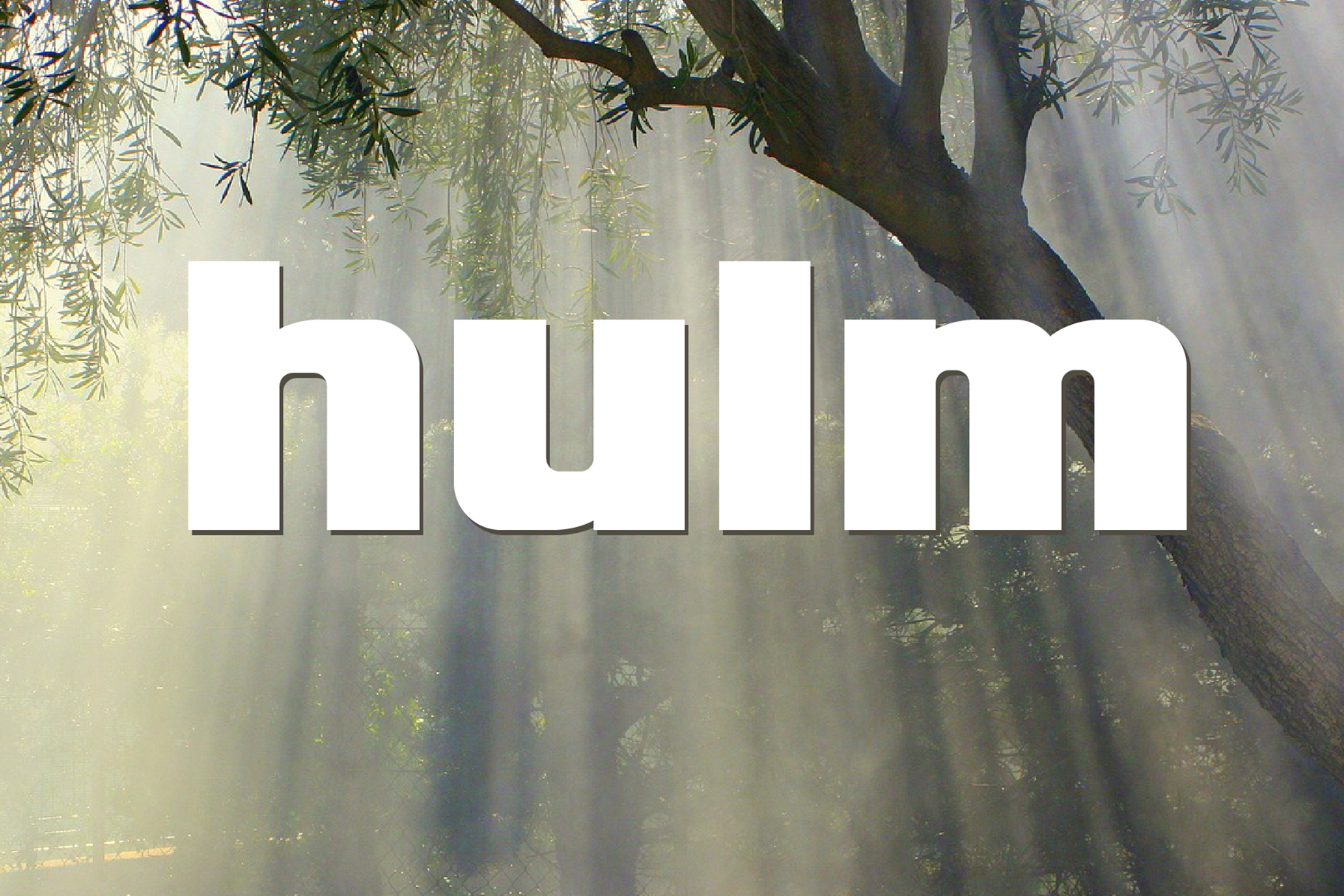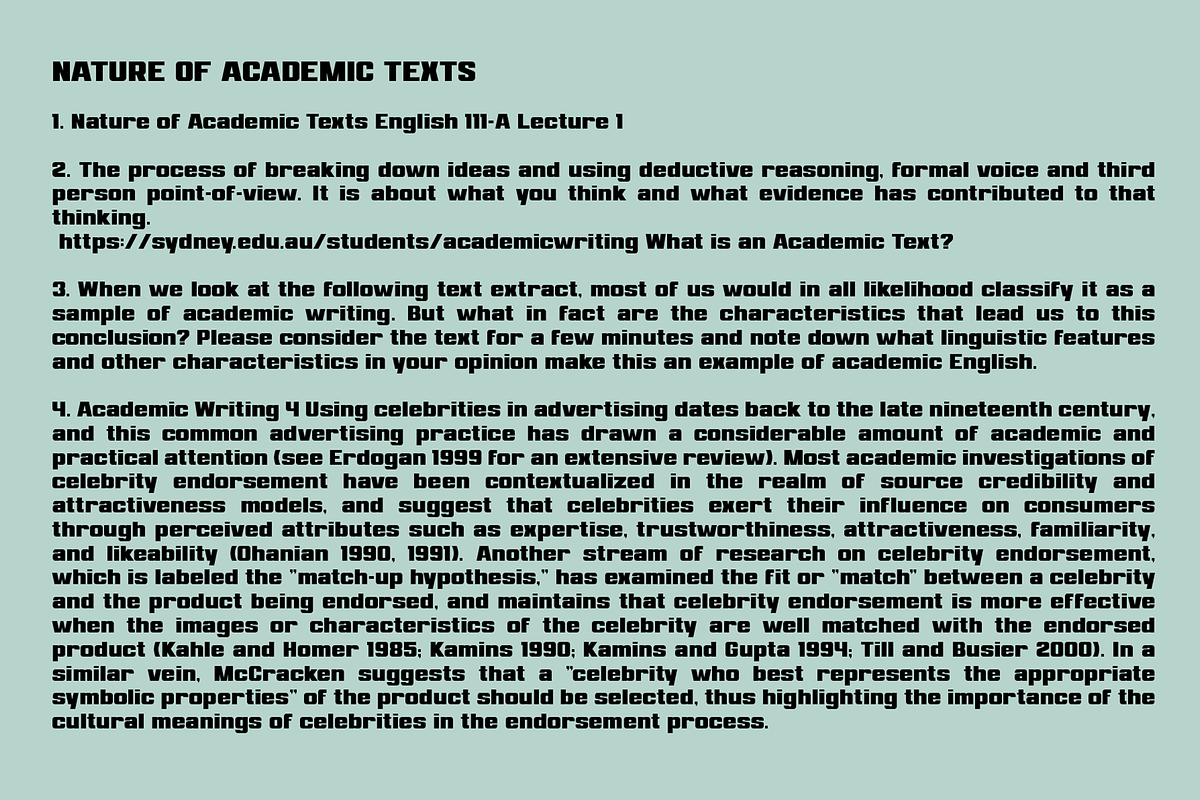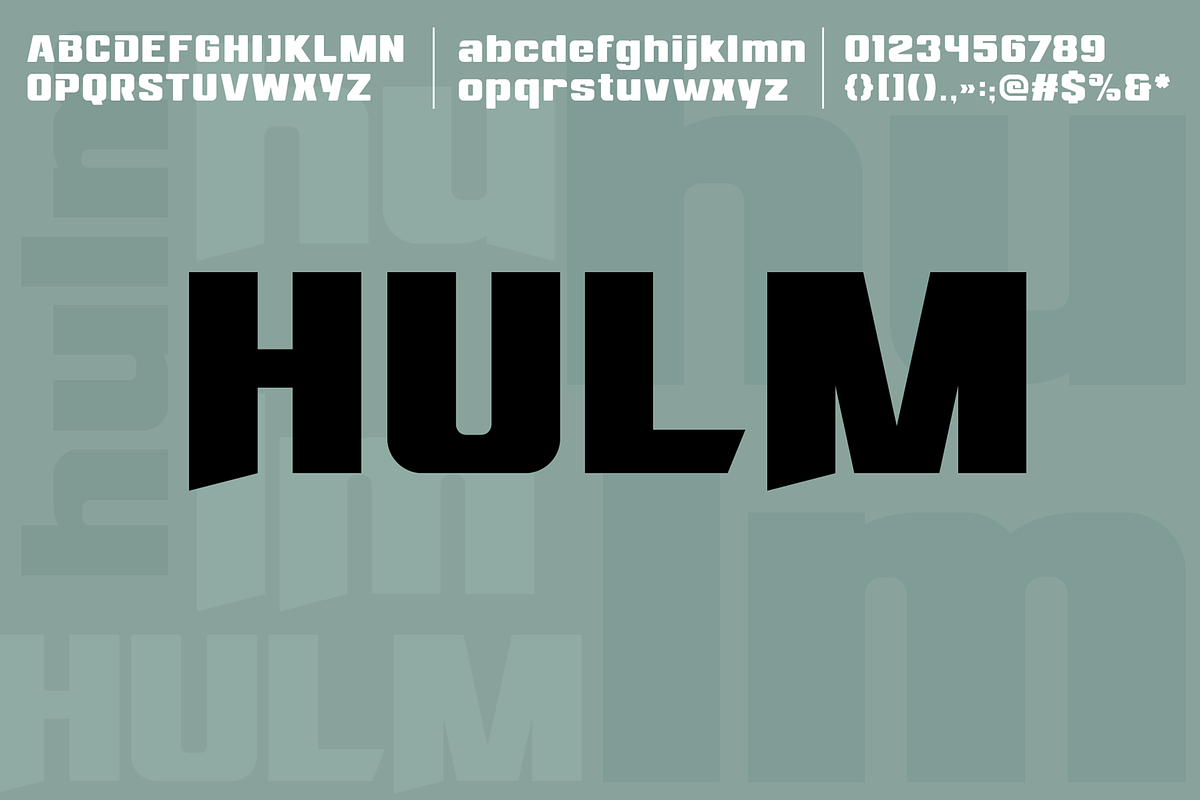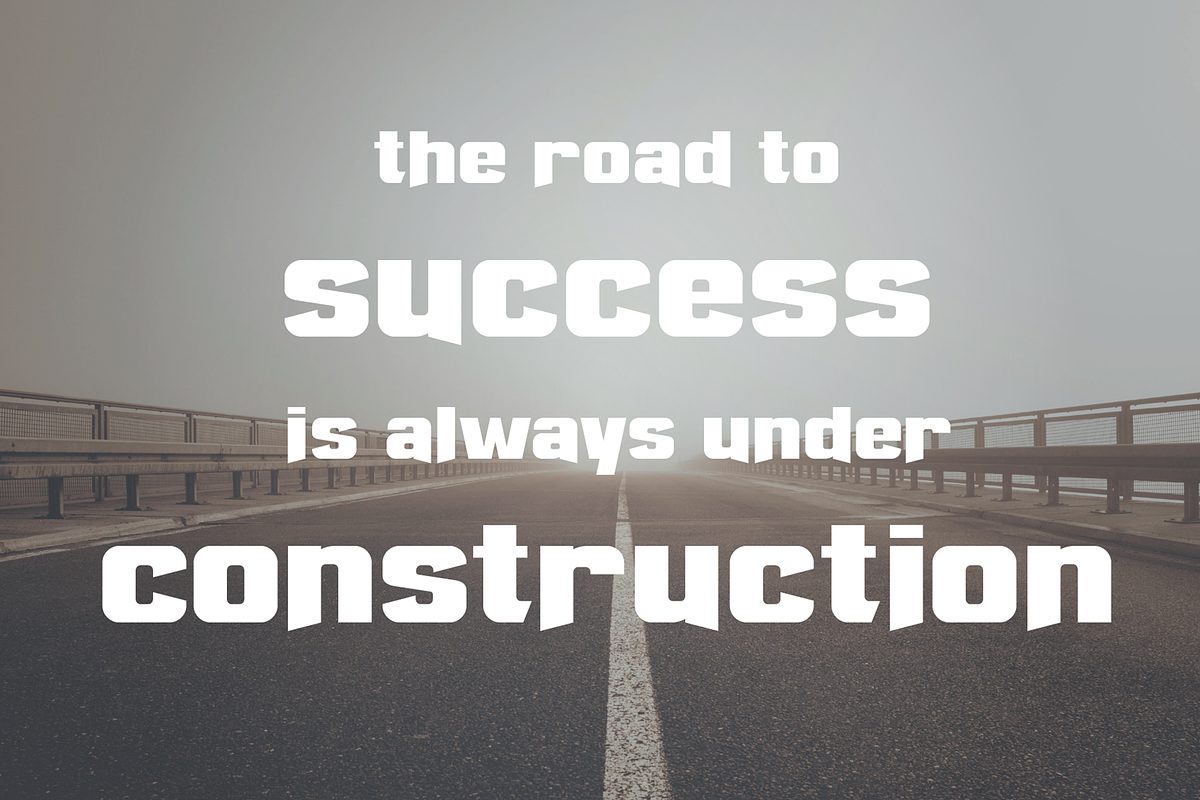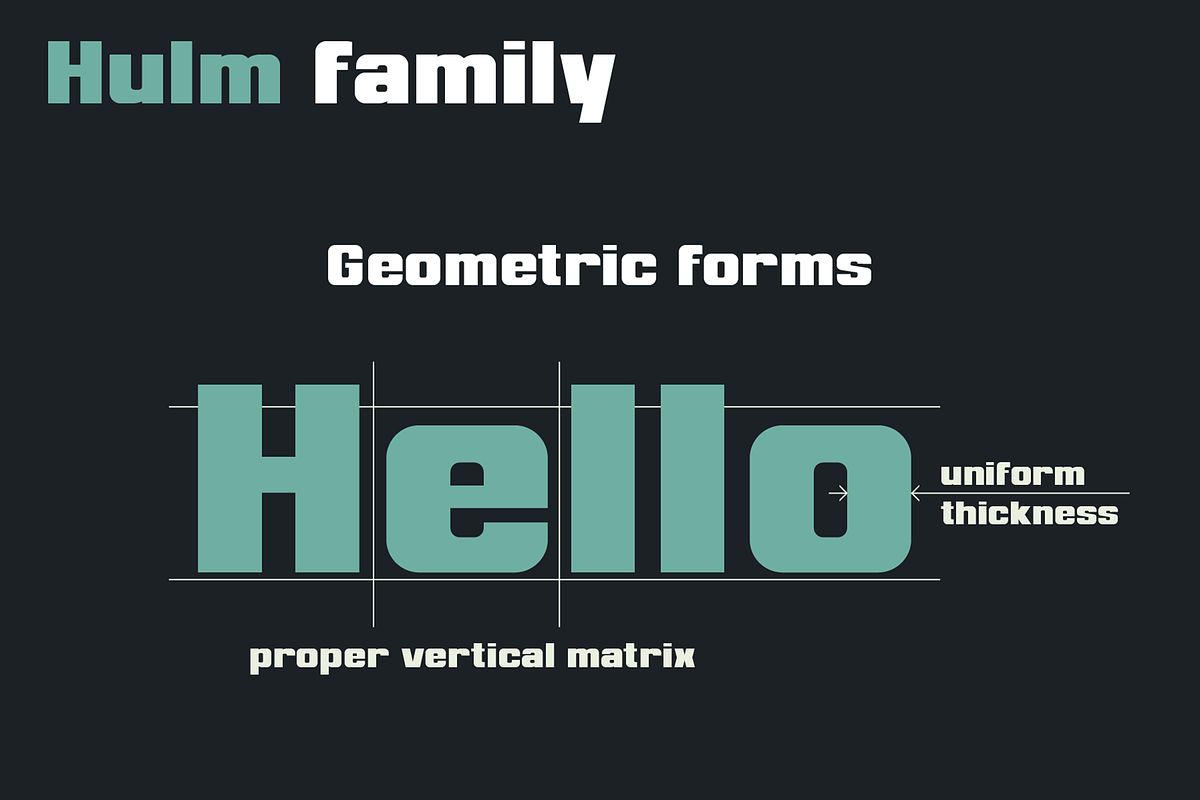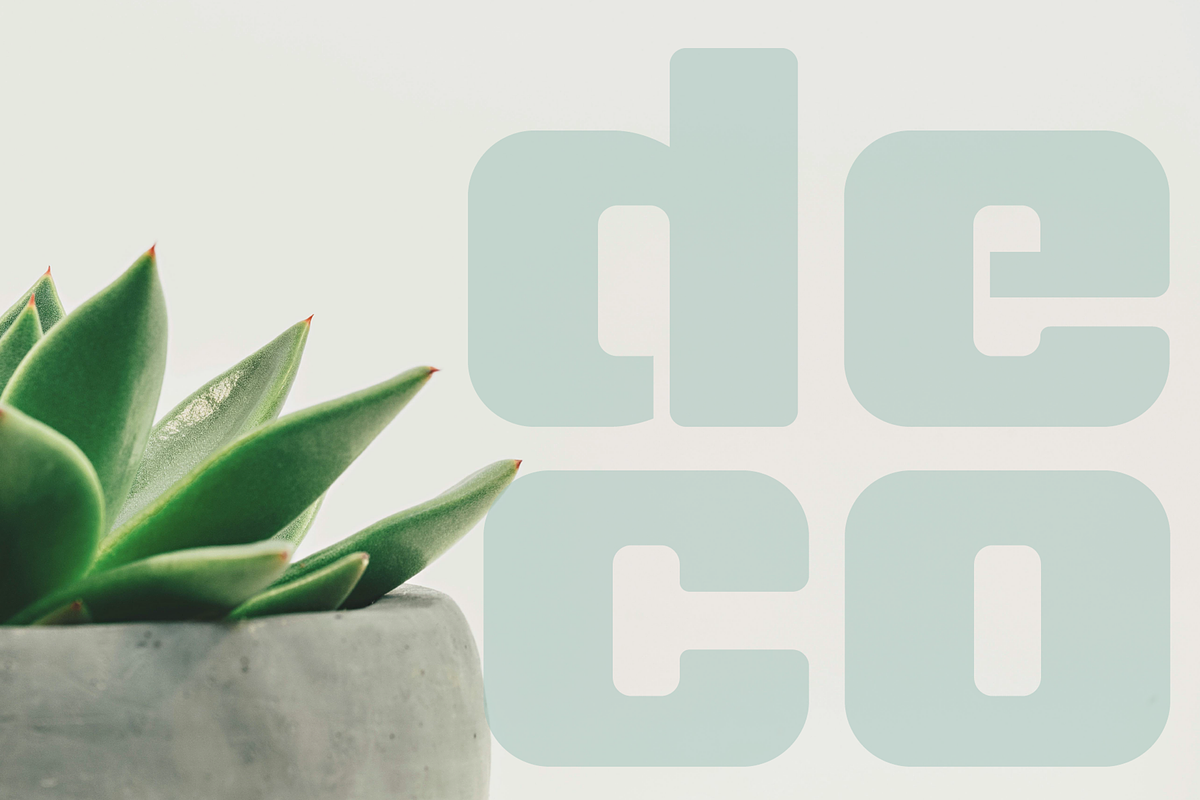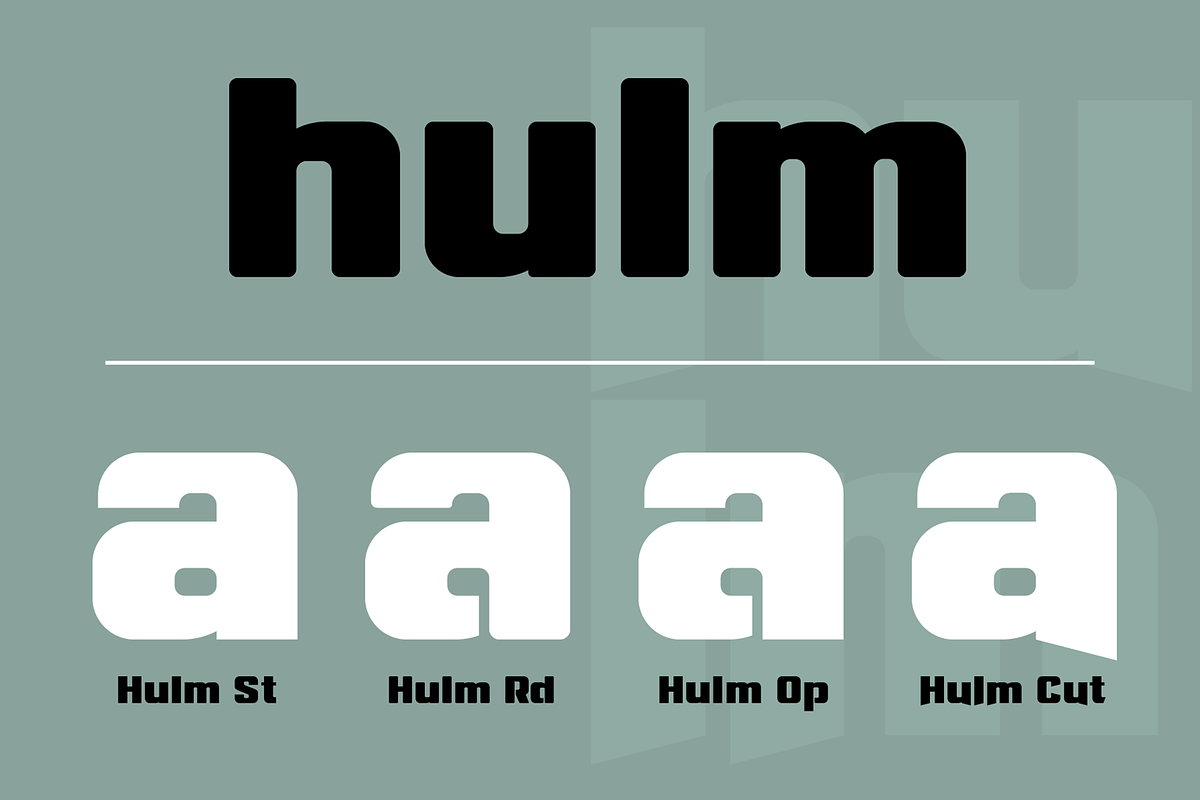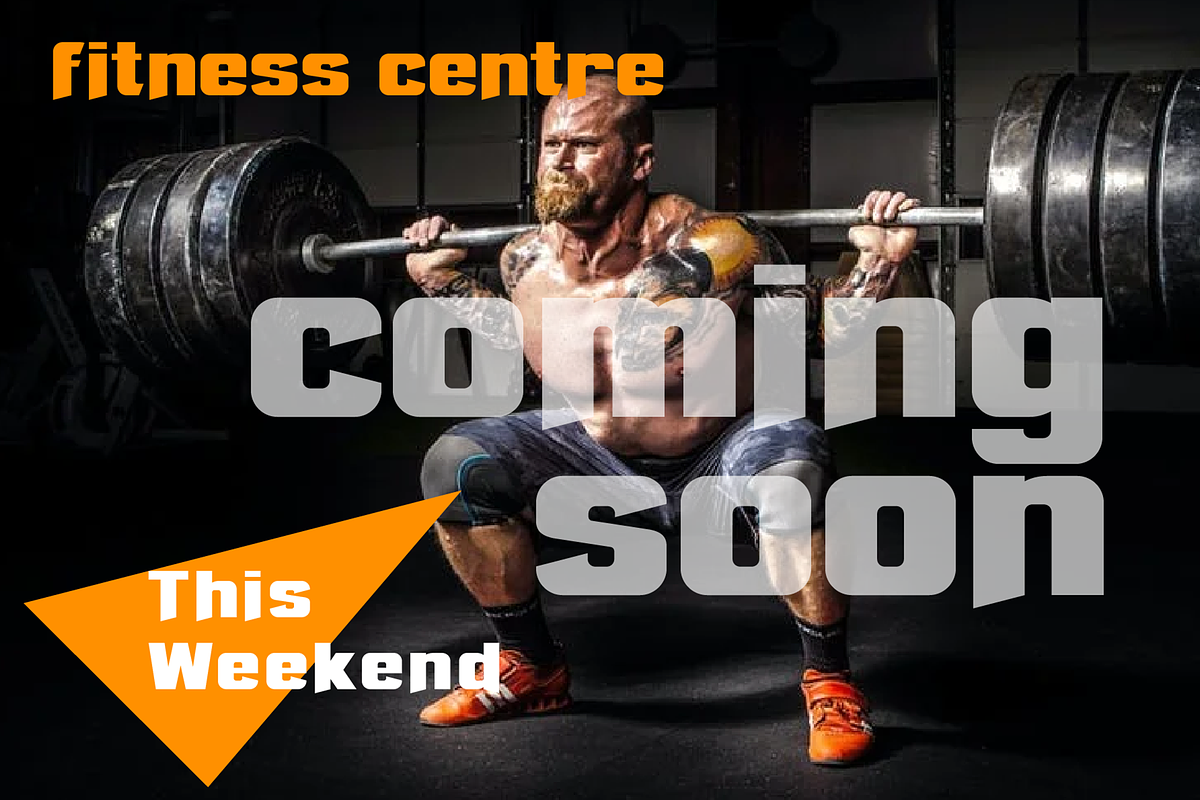
Hulm font family
Hulm is a modern bold sans serif geometric font, includes upper and lower case characters, Latin, Cyrillic, Latin Eastern Europe, Turkish, Baltic and other. The Hulm family consists of 4 types of fonts. Hulm fonts will be useful in developing a brand, creating posters and other graphic products, and for word processing.